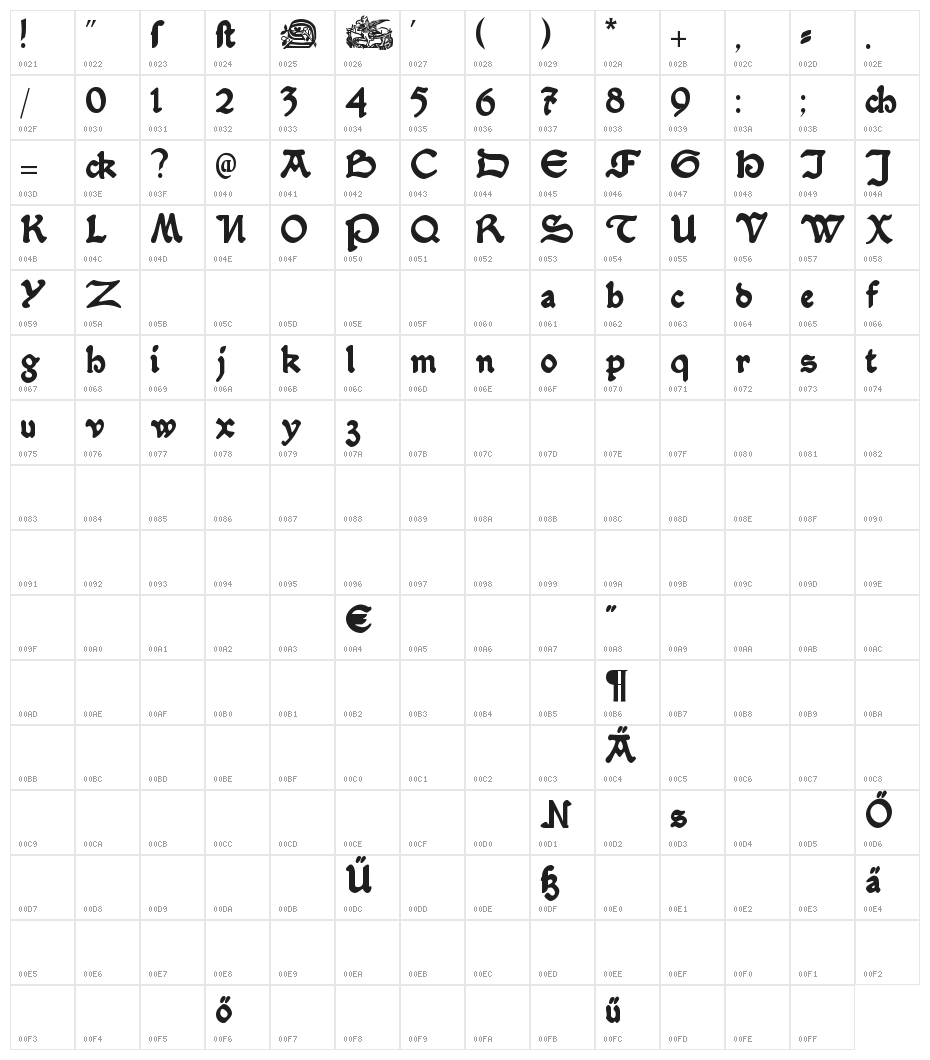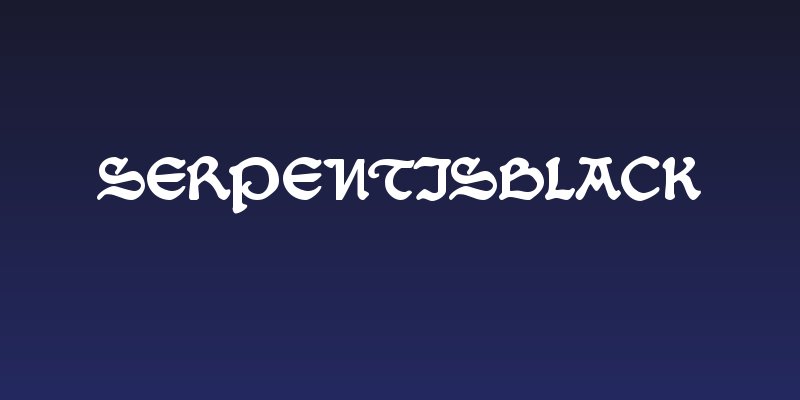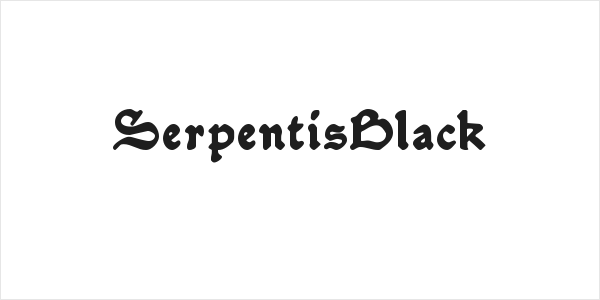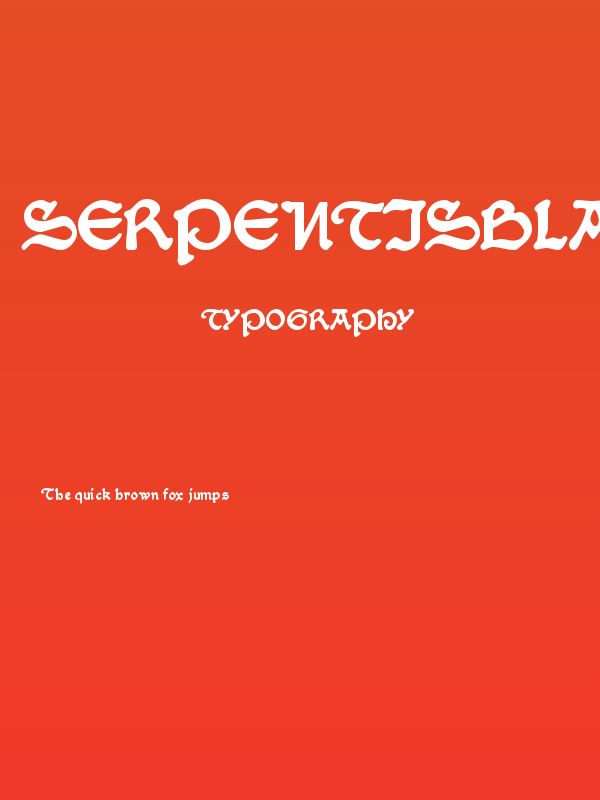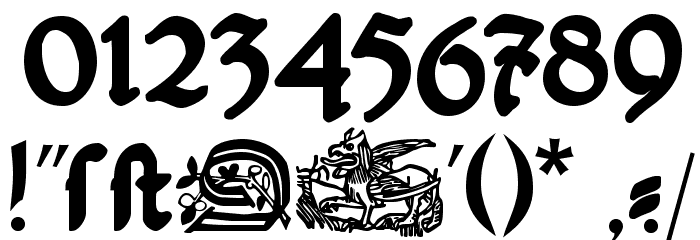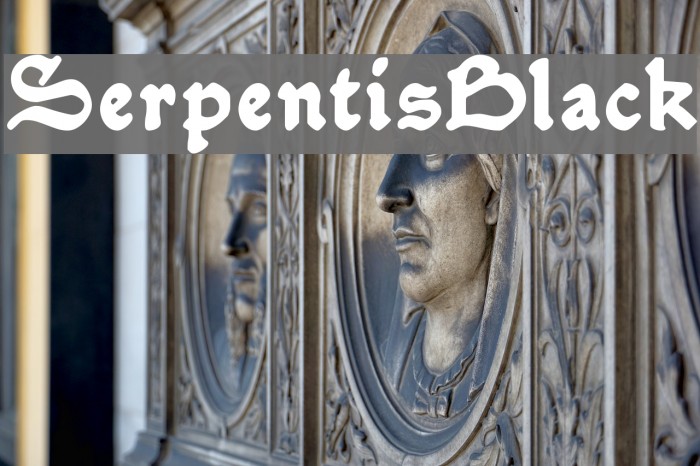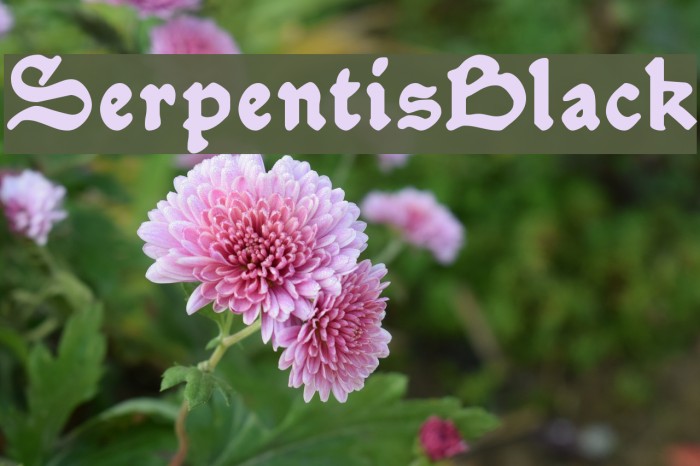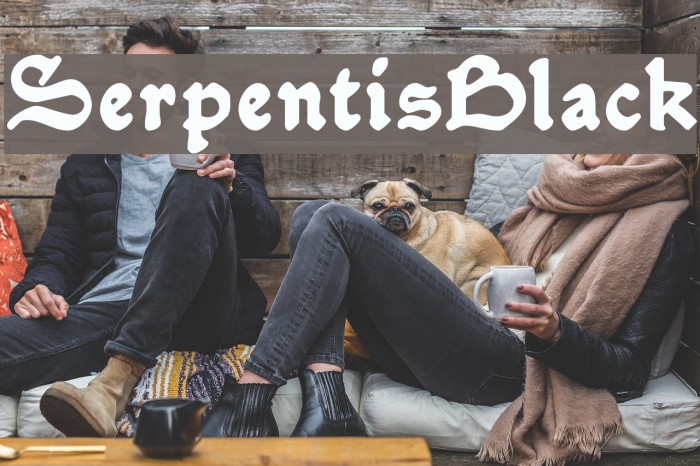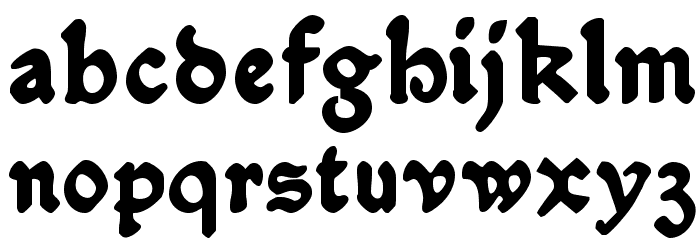
SerpentisBlack Font
SerpentisBlack Description
This font features a bold and dramatic style with a strong blackletter influence. The uppercase letters are characterized by sharp, angular lines and intricate detailing, giving them a medieval, gothic appearance. The lowercase letters maintain the same stylistic elements, with a slightly more rounded and compact form. Numbers are consistent with the overall theme, featuring unique curves and angles. Special characters are ornate and decorative, adding to the font's elaborate aesthetic. This typeface is designed to capture attention with its striking and historical look.
| Overall Style | Gothic, Medieval |
| Use Case | Headlines, Logos, Decorative text |
| Proposed Projects | Ideal for projects requiring a medieval or gothic theme, such as fantasy book covers, historical event posters, or themed branding. |